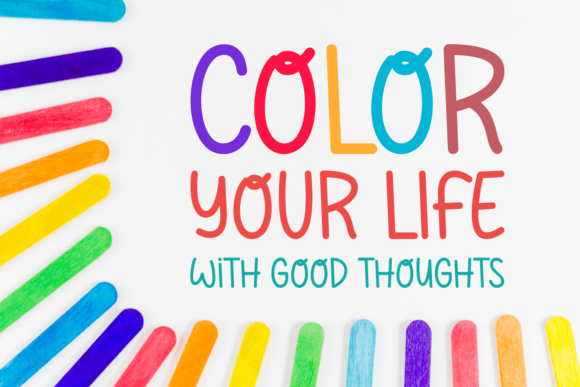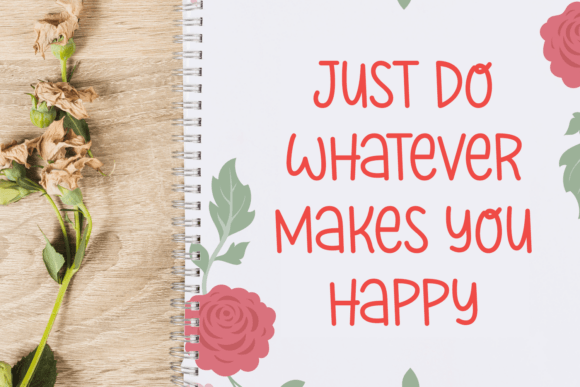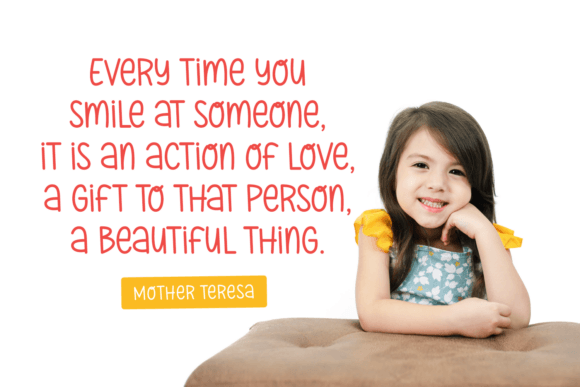
Introducing Hearty Service Font: The Perfect Typeface for Personal and Creative Projects
Are you looking for a font that exudes warmth, friendliness, and approachability? Look no further than Hearty Service Font, a casual handwritten typeface that is sure to add a touch of personality to your designs. With its smooth, flowing strokes and relaxed style, Hearty Service Font is perfect for personal projects, invitations, and branding that requires a human touch.
The Characteristics of Hearty Service Font
Hearty Service Font is a beautifully crafted handwritten font that boasts a range of characteristics that make it perfect for creative projects. Its smooth, flowing strokes give it a natural and effortless feel, while its relaxed style makes it approachable and friendly. The font’s casual demeanor makes it ideal for designs that require a personal touch, such as:
- Personal invitations, such as wedding invitations, birthday invitations, and graduation announcements
- Branding and packaging for small businesses, craft businesses, and personal projects
- Social media graphics, blog posts, and other digital content
- Stationery, such as notecards, greeting cards, and journals
The Benefits of Using Hearty Service Font
So why choose Hearty Service Font for your next project? Here are just a few benefits of using this delightful typeface:
- Unique and distinctive: Hearty Service Font has a unique and distinctive style that will set your designs apart from the crowd. Its casual, handwritten feel gives it a personal touch that is hard to replicate with more formal fonts.
- Easy to read: Despite its casual style, Hearty Service Font is surprisingly easy to read, making it perfect for longer blocks of text. Its smooth strokes and flowing style make it a joy to read, even at smaller sizes.
- Versatile: Hearty Service Font is incredibly versatile, and can be used for a wide range of projects, from personal invitations to branding and packaging.
- Time-saving: With Hearty Service Font, you can create beautiful, professional-looking designs in no time. Its pre-designed characters and ligatures make it easy to create stunning text-based designs without spending hours designing from scratch.
How to Use Hearty Service Font in Your Designs
Hearty Service Font is easy to use and can be incorporated into your designs in a variety of ways. Here are a few tips to get you started:
- Pair it with other fonts: Hearty Service Font pairs beautifully with other fonts, such as sans-serif fonts, and script fonts. Experiment with different pairings to find the perfect combination for your design.
- Use it for headings and titles: Hearty Service Font is perfect for headings and titles, where its bold, flowing strokes can really make an impact.
- Use it for body text: Despite its bold style, Hearty Service Font is also easy to read at smaller sizes, making it perfect for body text.
Tips and Tricks for Working with Hearty Service Font
Here are a few tips and tricks to help you get the most out of Hearty Service Font:
- Experiment with different colors: Hearty Service Font looks great in a range of colors, from bright and bold to soft and pastel. Experiment with different colors to find the perfect match for your design.
- Play with texture and pattern: Hearty Service Font looks great with texture and pattern. Try adding a subtle texture or pattern to your design to give it an extra layer of interest.
- Don’t be afraid to get creative: Hearty Service Font is a versatile typeface that can be used in a wide range of creative projects. Don’t be afraid to experiment and try new things – it’s a great way to discover new and exciting design possibilities.
Hearty Service Font is a beautiful, versatile typeface that is perfect for designers and crafters looking to add a touch of personality to their designs. With its smooth, flowing strokes and relaxed style, it’s ideal for personal projects, invitations, and branding that requires a human touch. Whether you’re a seasoned designer or just starting out, Hearty Service Font is a great choice for any project that requires a unique and distinctive typeface.